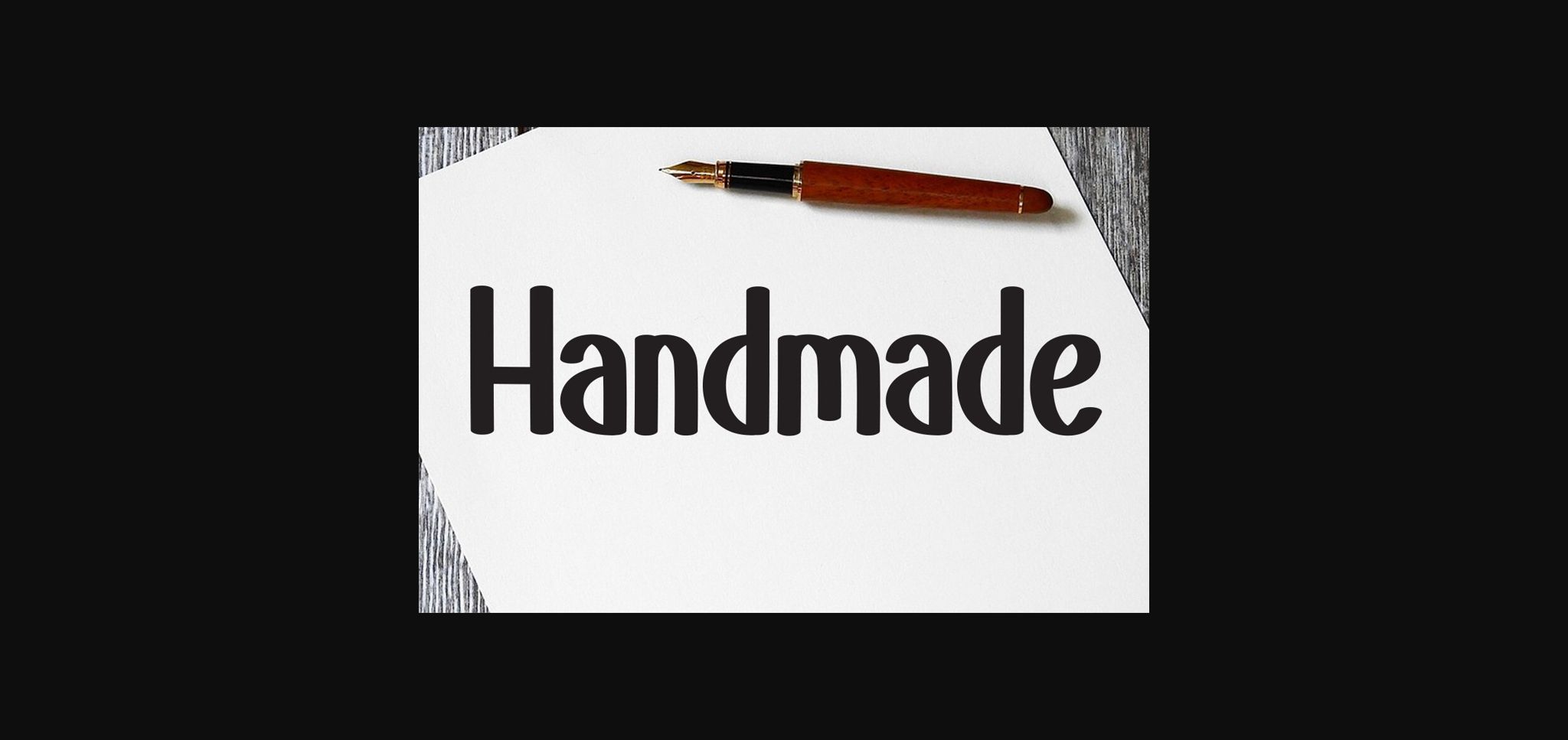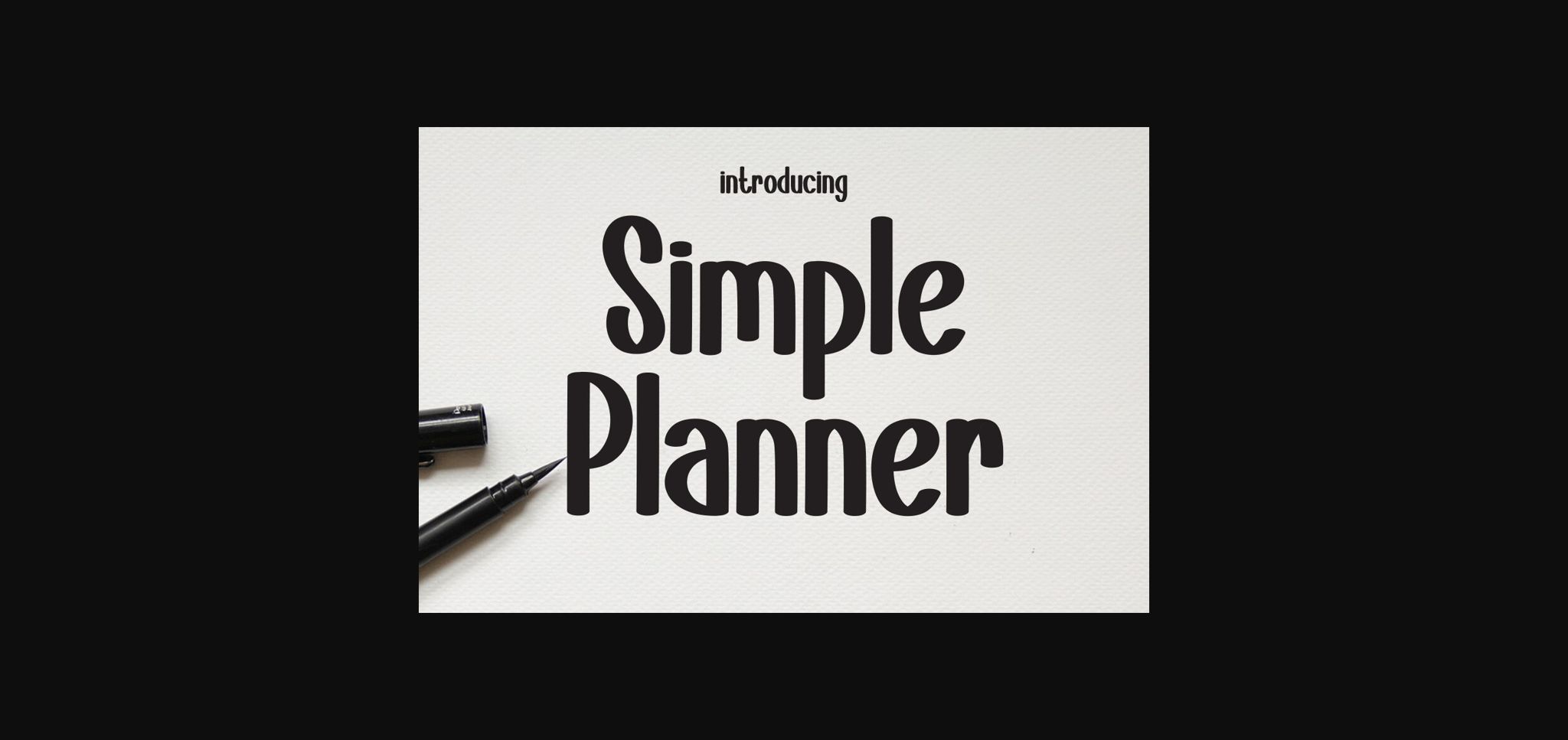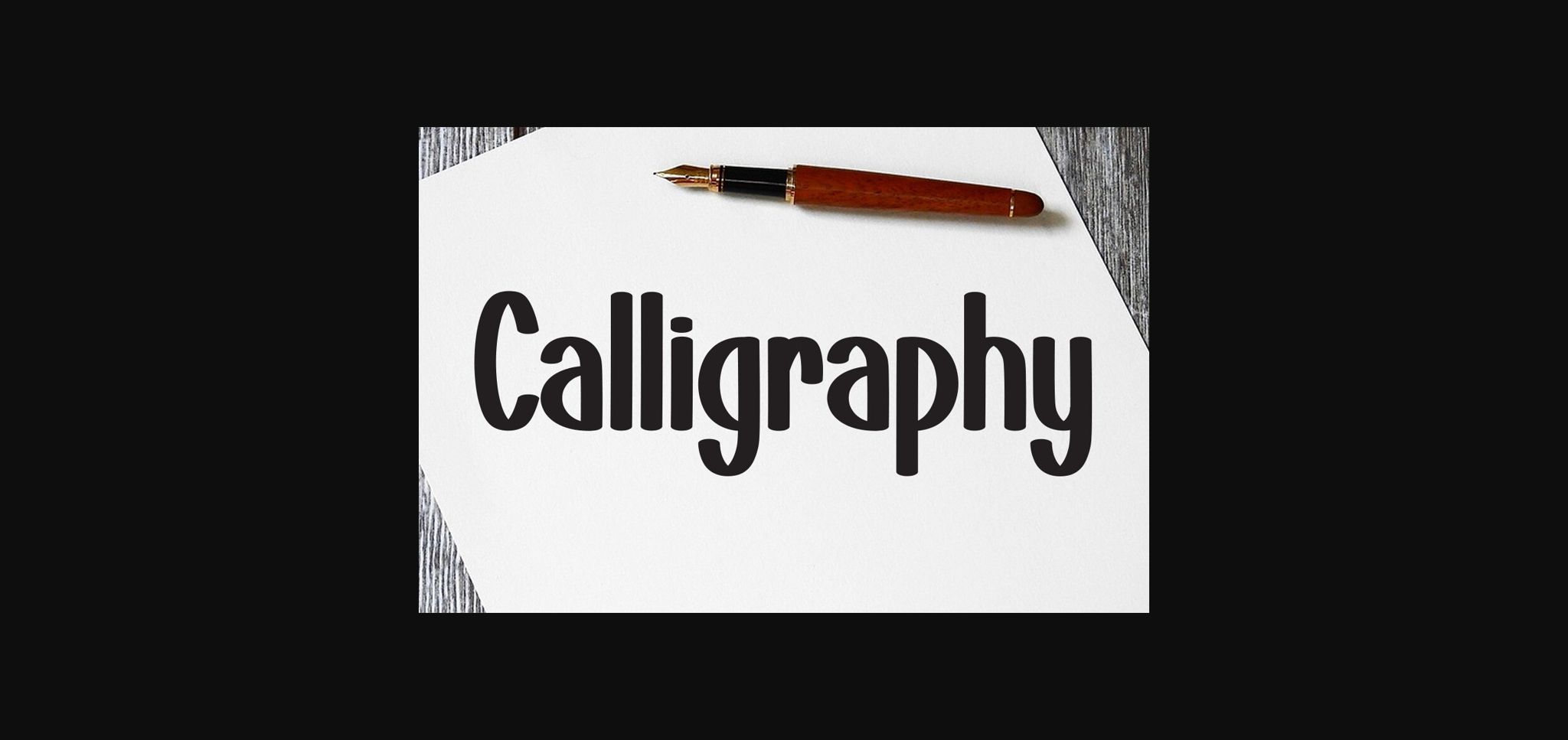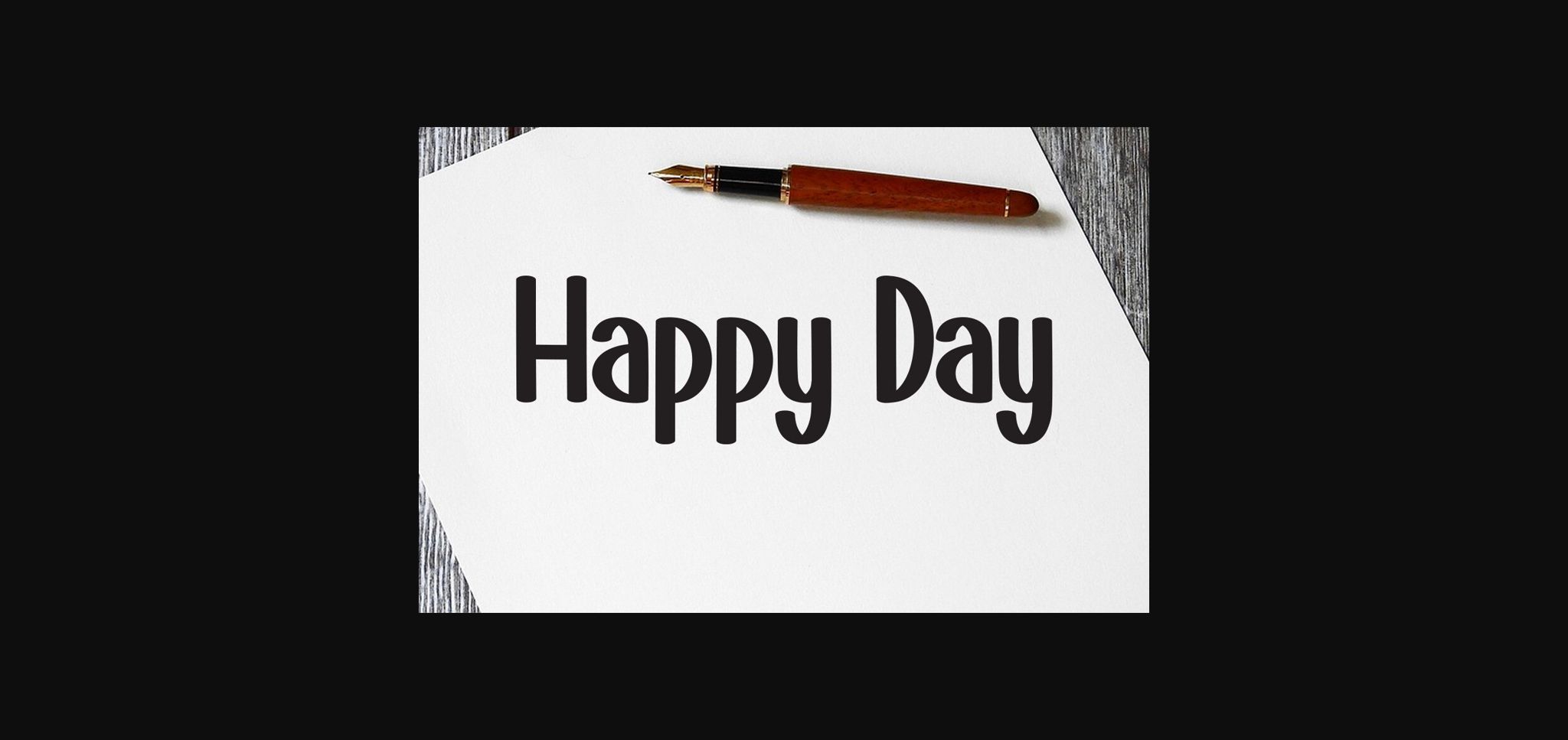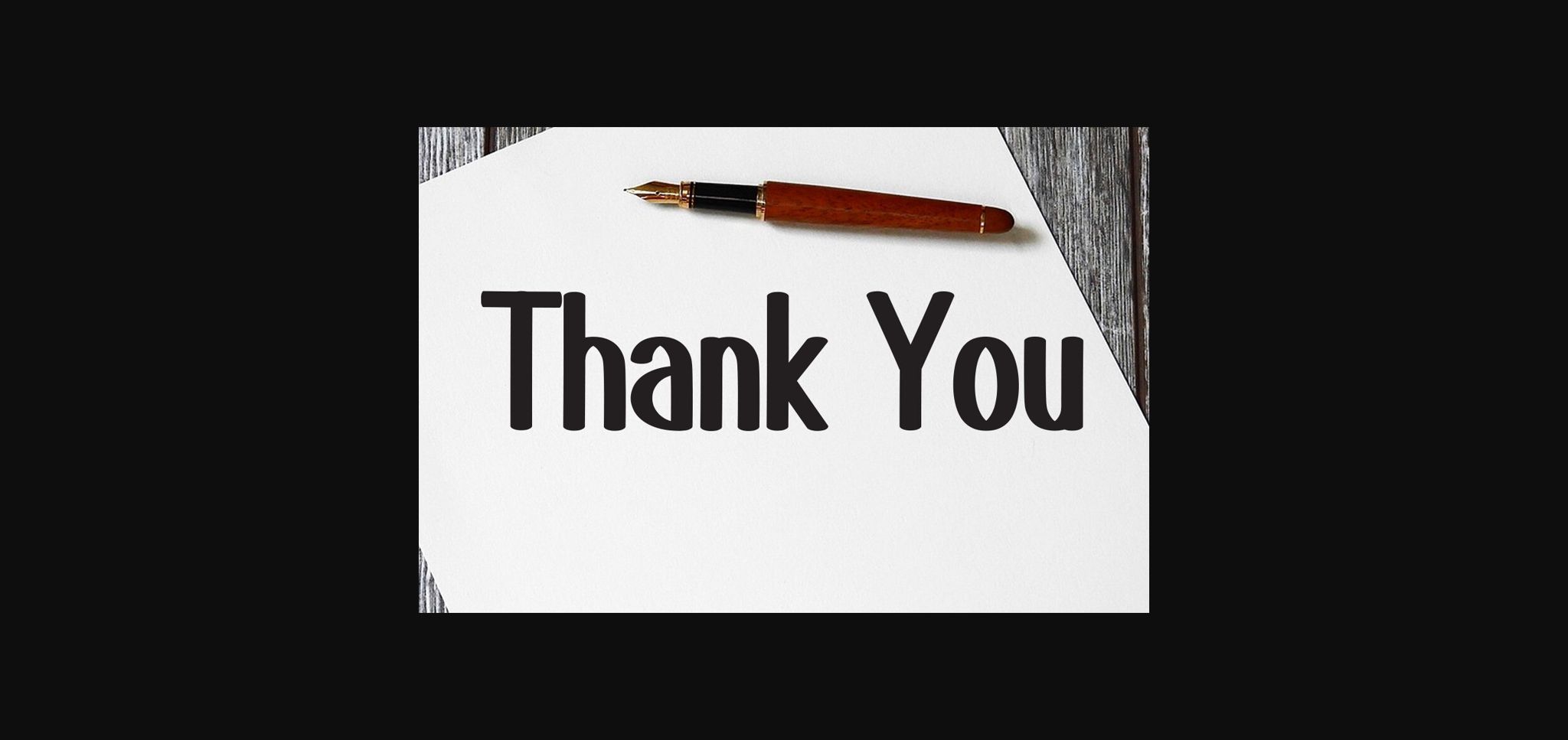
HomeSans Serif FontsSimple Planner Font Sans Serif Fonts Simple Planner Font FacebookXPinterestWhatsApp 1 of 7 ... Simple Planner Font Poster 2... Simple Planner Font Poster 3... Simple Planner Font Poster 4... Simple Planner Font Poster 5... Simple Planner Font Poster 6... Simple Planner Font Poster 7... About Simple Planner Font Simple Planner is a sweet and neat sans-serif font. This gentle font will look gorgeous on a variety of design ideas. It will add a joyful and romantic touch to each of your projects! DOWNLOAD NOW People also explored Rosetype Font Amanda Font Love Day Font Monogram H | Monofont Caps H Font Barbies Script Font Summer and Winter Font Square Lettle Power Font Spookyella Font 315 0 TagsSimple Planner Font Previous articleChristmas FontNext articleSimple Planner Font LEAVE A REPLY Cancel reply Comment: Please enter your comment! Name:* Please enter your name here Email:* You have entered an incorrect email address! Please enter your email address here Website: Save my name, email, and website in this browser for the next time I comment. Personal Use Free Kilsonburg Personal Use Free Read more about this font Kensin Personal Use Free Read more about this font Lollipop Melody Personal Use Free Read more about this font Xplor Personal Use Free Read more about this font BLOG 5 Fonts That Will Dominate Design Trends in 2026 5 Fonts for 2026 That Will Dominate Design Trends Typography plays a critical role in visual communication, and as we look ahead to 2026, it’s... Modern Sans-Serif Fonts That Brands Love in 2025 Elegant Wedding Invitation Fonts – Handwritten & Script Fonts Free Fonts Risk: Why Free Fonts Can Be Dangerous for Designers